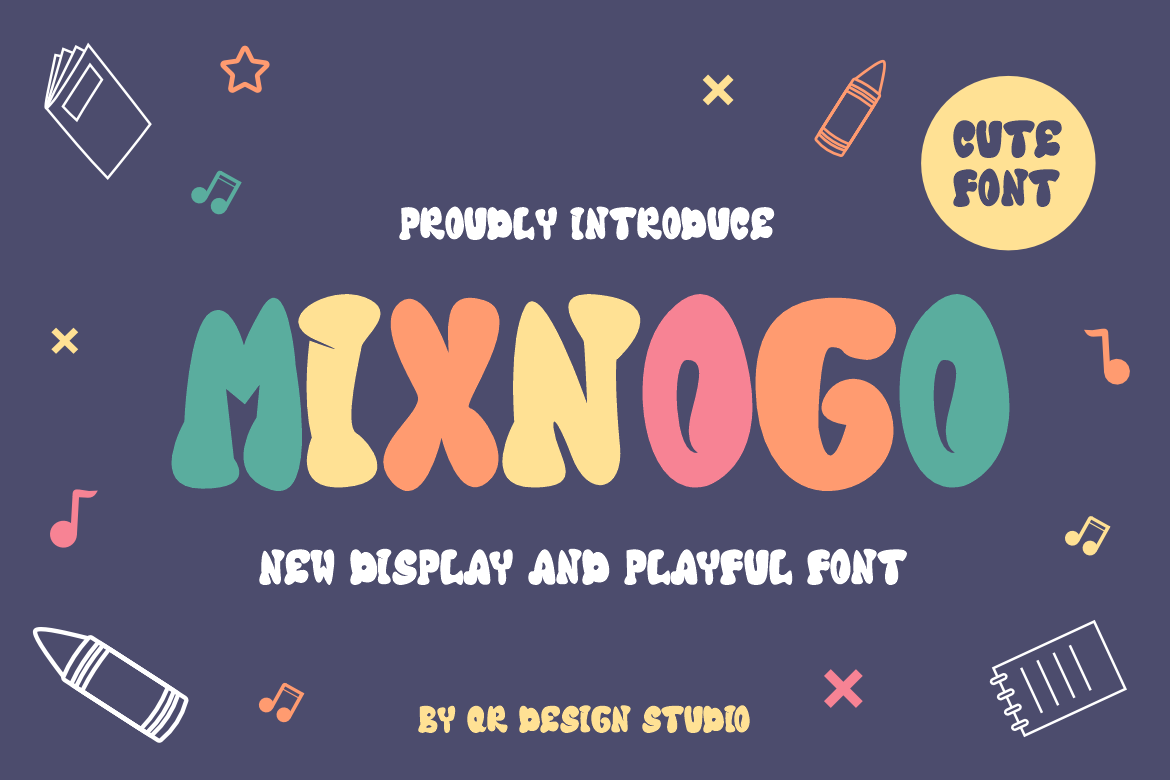
Mixnogo - Playful Font
Mixnogo - Playful Font is a bold and authentic display font. The font is suitable for any branding project like kids, food, poster, logo, sport, and many more. Outstanding in a wide range of contexts.